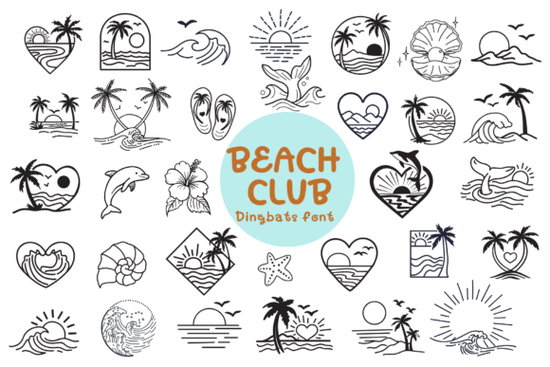
Designers, crafters, and small businesses looking for a unique way to add a tropical flair to their projects will find the Beach Club Doodle Font to be a valuable addition to their creative toolkit. This font is more than just a collection of letters it’s a set of beach-themed dingbats that bring the essence of summer to any design. Whether you're working on t-shirts, mugs, or digital products, the Beach Club Doodle Font offers a fresh and fun approach to incorporating oceanic elements into your work.
The Beach Club Dingbats Font features a range of clean line art designs that capture the spirit of a tropical getaway. From waves and palm trees to dolphins and seashells, each icon is crafted with attention to detail and a focus on creating a relaxed, modern vibe. These symbols are ideal for summer campaigns, vacation-related branding, and any project that benefits from a laid-back, coastal aesthetic.
What Makes This Font Unique?
One of the standout features of the Beach Club Doodle Font is its versatility. The high-quality vector-style line art ensures that each symbol looks sharp and professional, no matter the size or medium. This makes it perfect for use in Cricut and Silhouette machines, as well as for sublimation and print projects. The font is also easy to use, allowing even those new to design software to incorporate these elements seamlessly into their work.
Another benefit is the wide range of applications this font supports. It’s not just for t-shirt designs or stickers this font can be used in logos, beach party invitations, travel brochures, and more. Its clean style makes it adaptable to both casual and more polished projects, giving you the flexibility to match the tone of your brand or creative vision.
Who Can Benefit from This Font?
This font is especially useful for print-on-demand sellers who want to offer unique, themed products without the hassle of creating custom graphics from scratch. It’s also great for small businesses looking to establish a strong visual identity around summer or beach-related themes. For hobbyists and DIY enthusiasts, the Beach Club Doodle Font provides an easy way to add personal touches to handmade items, such as tote bags, mugs, and greeting cards.
Whether you’re designing for a local café with a beachside theme or creating digital products for a summer sale, the Beach Club Dingbats Font can help you achieve a cohesive and appealing look. The inclusion of symbols like sunsets, starfish, and shells adds a level of detail that elevates the overall design and makes your work stand out.
How to Use the Beach Club Doodle Font
Before finalizing your design, take a moment to test the font in different sizes and formats to ensure it meets your needs. You may also want to experiment with color schemes that complement the beach theme, such as pastel blues, warm yellows, and soft greens. These choices can enhance the overall feel of your project and make it more visually appealing.
By incorporating the Beach Club Doodle Font into your workflow, you’ll have a powerful tool for creating engaging, themed designs that resonate with your audience. Whether you're working on a personal project or a business venture, this font offers a practical and stylish solution for adding a touch of the beach to your creative work.